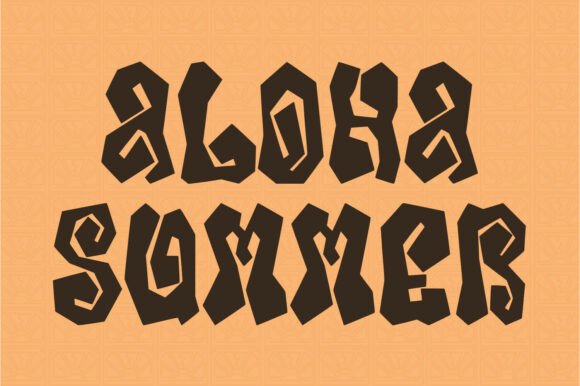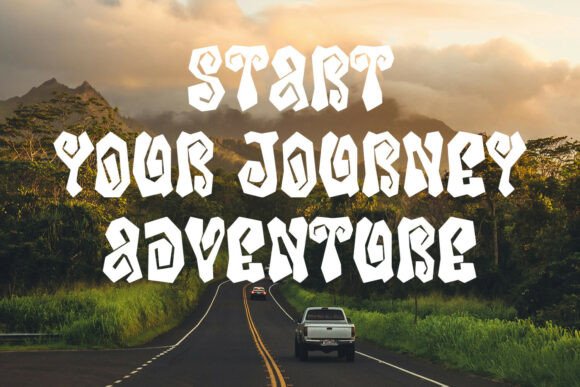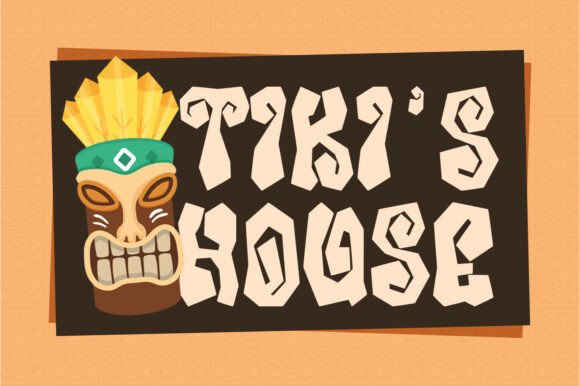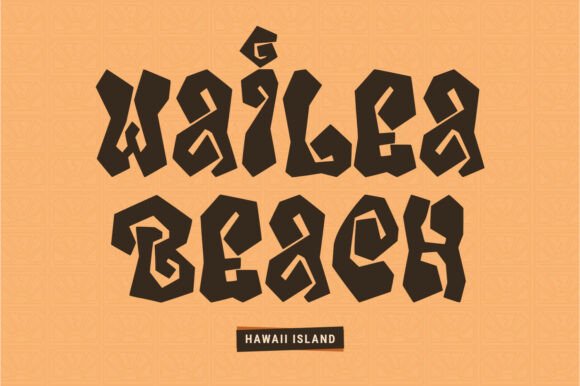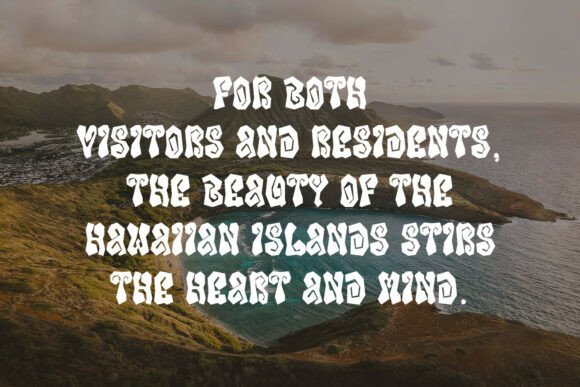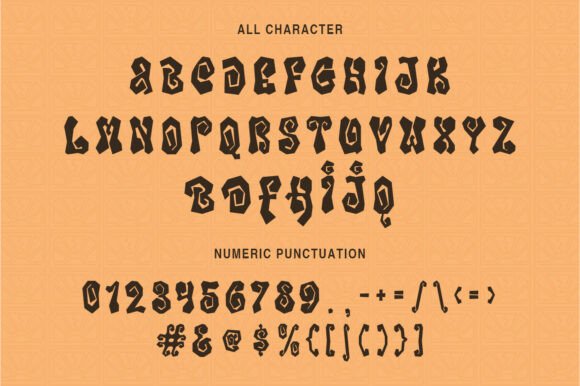
Unleashing Your Creativity with Badugaru Font
Have you ever stumbled upon a font that makes you feel like a kid in a candy store, eager to play and experiment with endless possibilities? That’s exactly what happened when we discovered the Badugaru Font, a playful style display font that’s bursting with character and flair.
Designed to give you an extra creative boost, the Badugaru Font is perfect for logo design, social media, movie titles, book titles, and even short or long text letters. Its versatility and multilingual support (over 100+ languages) make it an invaluable asset for designers looking to add a touch of whimsy to their work.
Badugaru Font Key Features
- Font Family: Badugaru is a unique, hand-drawn font family with 4 different styles: Regular, Italic, Bold, and Bold Italic.
- Unique Characteristics: Badugaru font features a distinctive, hand-drawn style with intricate details and subtle flourishes, making it perfect for creative and artistic projects.
Badugaru Font Review
As a designer, I recently had the chance to work with the Badugaru font, and I must say it’s a unique and intriguing choice. Here are my honest thoughts on this font.
- ✨ The Badugaru font has a distinctive and modern aesthetic that’s perfect for bold, eye-catching headlines.
- ✨ The font’s irregularities and imperfections give it a handmade feel that’s perfect for creative, artistic projects.
- ✨ The Badugaru font is highly customizable, allowing designers to tweak the font’s appearance to fit their specific needs.
- ⚠️ The font’s irregularities can sometimes make it difficult to read, particularly in large blocks of text.
- ⚠️ The font’s modern aesthetic may not be suitable for all types of projects, particularly those that require a more traditional or formal look.
- ⚠️ The font’s customization options can be overwhelming for designers who are new to working with unique fonts.
The Badugaru font is a bold and eye-catching choice that’s perfect for designers who want to make a statement. While it may have some limitations, the font’s unique aesthetic and high degree of customization make it a great choice for creative projects.
Getting the Most Out of Badugaru Font
Here are some tips to get the most out of Badugaru Font:
- Use it for creative and artistic projects where you want to add a unique touch.
- Combine it with other fonts to create a visually appealing contrast.
- Experiment with different font sizes and colors to enhance the font’s effectiveness.
Alternatives to Badugaru Font